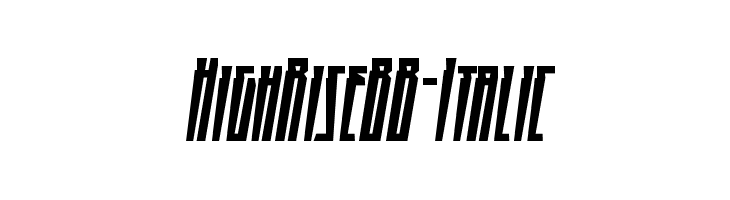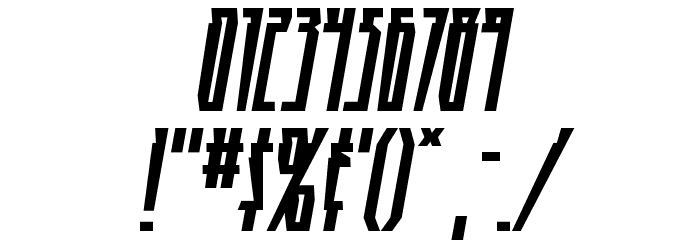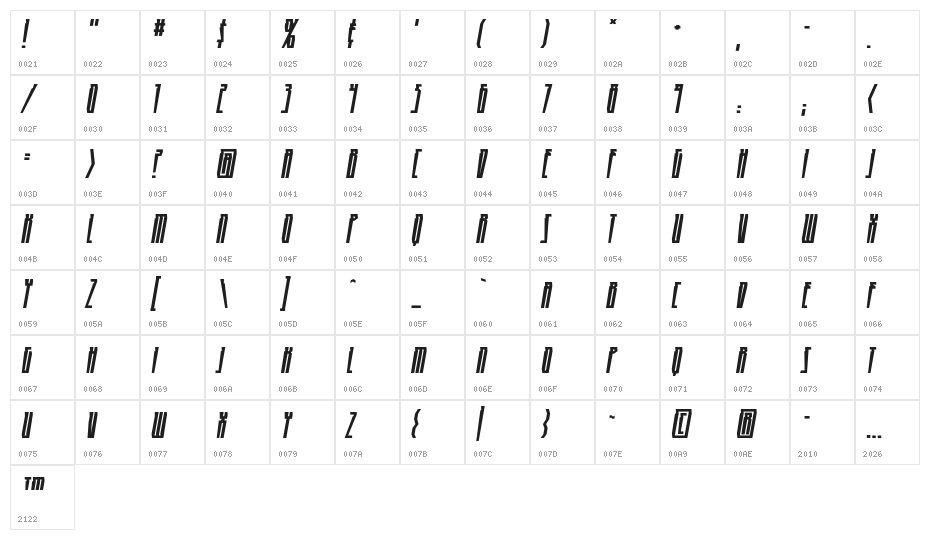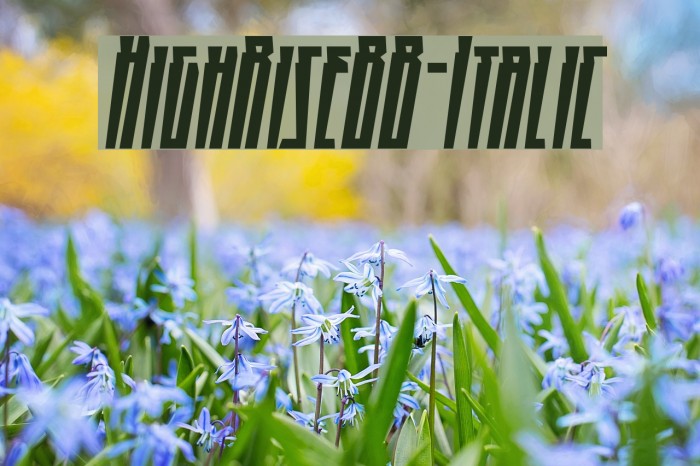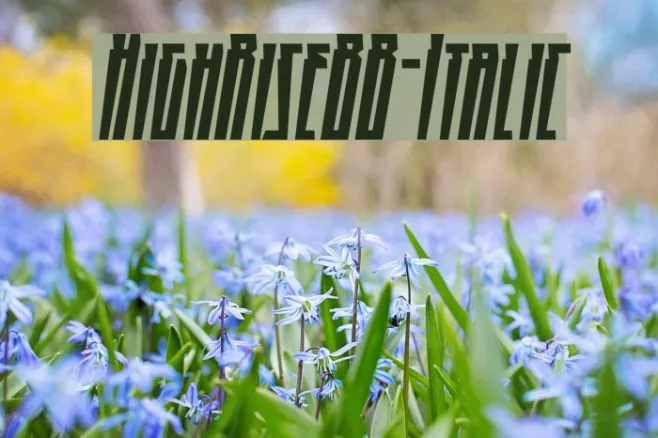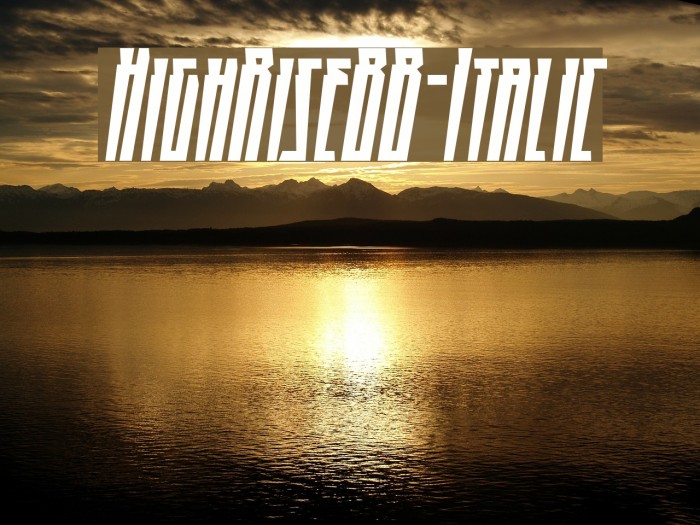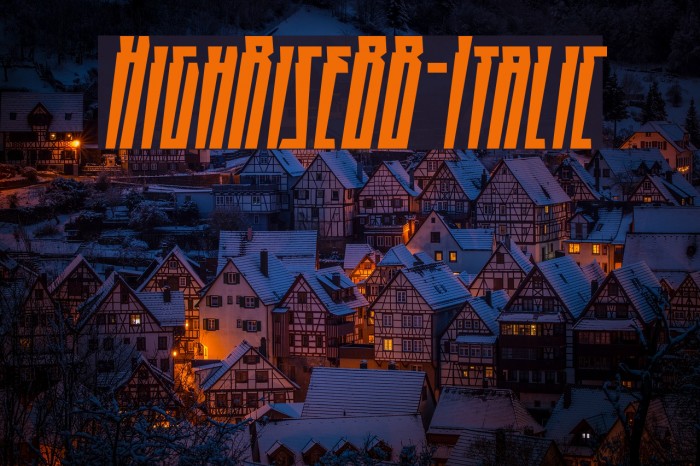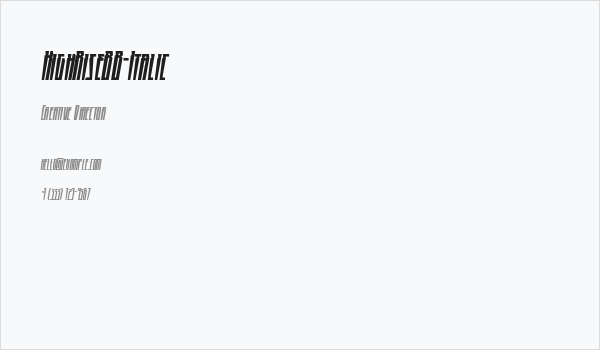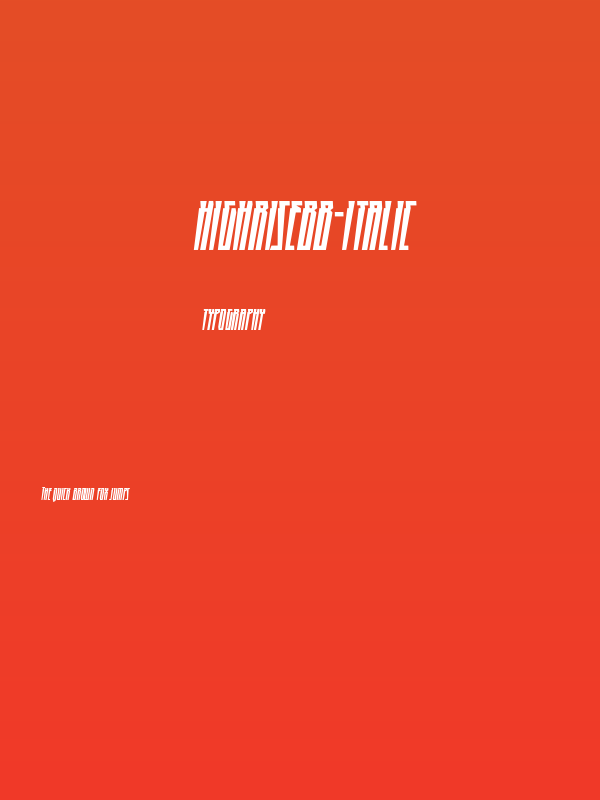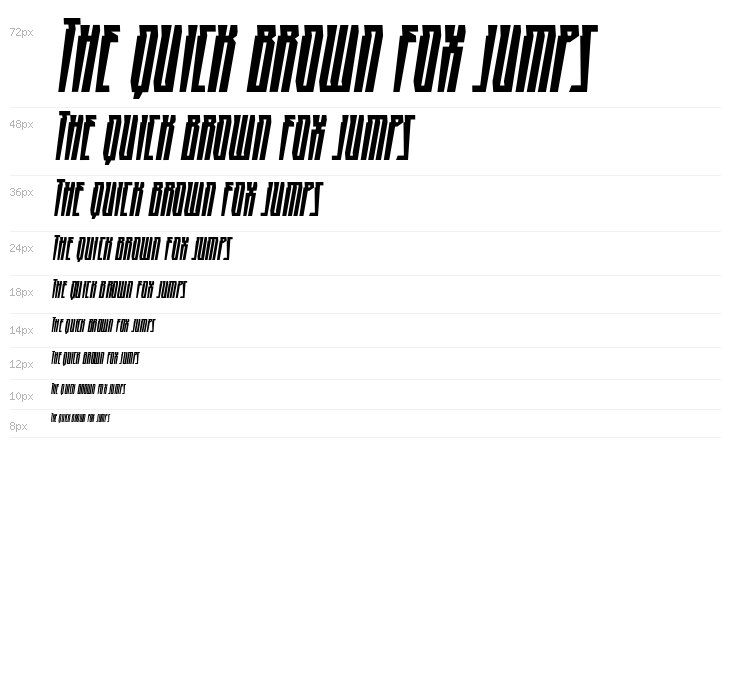
HighRiseBB-Italic Font
HighRiseBB-Italic Description
This font features a bold and dynamic design with a distinct italic slant, giving it a sense of movement and energy. The characters are tall and narrow, creating a condensed appearance that emphasizes verticality. The strokes are consistent in thickness, contributing to a uniform look across all characters. The angular edges and sharp corners add a modern and edgy feel, making it suitable for contemporary designs. The font includes a full set of uppercase and lowercase letters, numbers, and a variety of special characters, ensuring versatility in usage.
| Proposed Projects | Ideal for use in sports branding, dynamic posters, modern advertising, and edgy graphic design projects. |